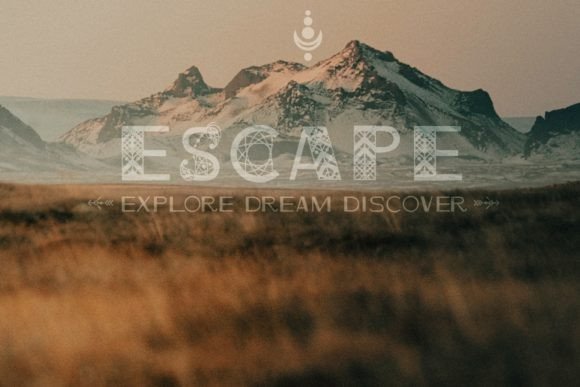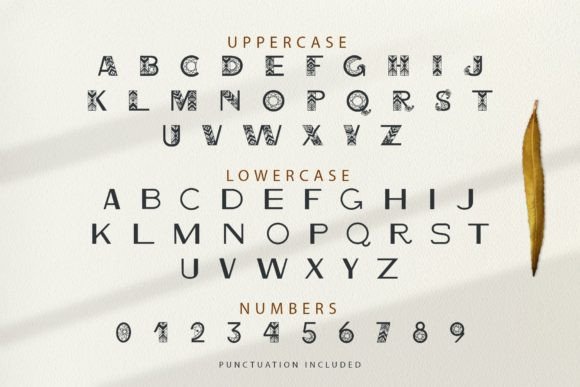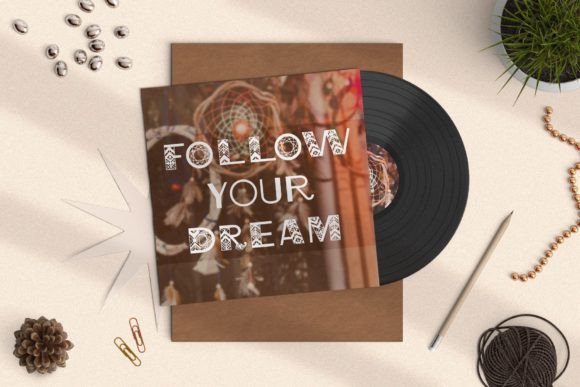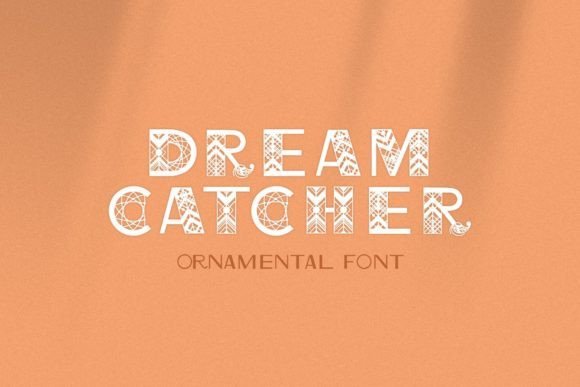
Introduction to Dreamcatcher Font
Dreamcatcher is a unique and gorgeous decorative font.
Its ornamental elements and boho style make this font the perfect choice for all your special projects .